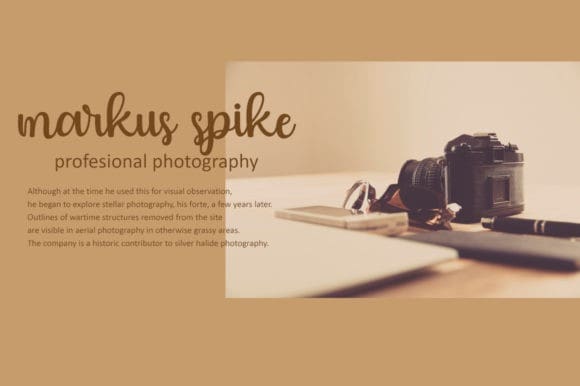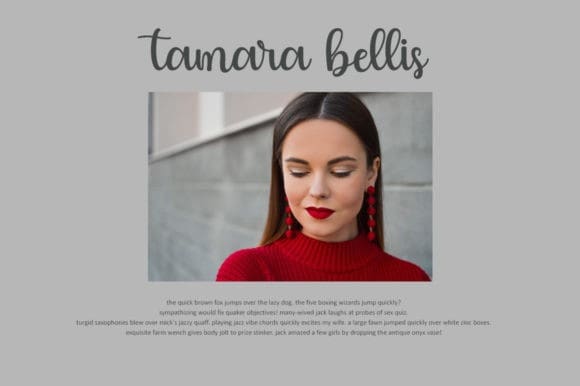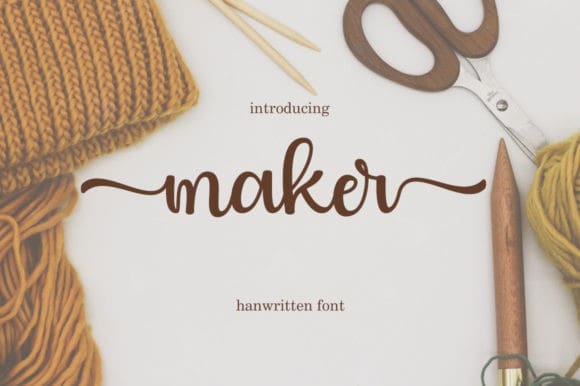
Maker Script Font
Maker Script Font, is a cute and sweet calligraphy typeface with characters that dance along the baseline. It has a casual, yet elegant touch. This font is PUA encoded which means you can access all glyphs and swashes with ease!